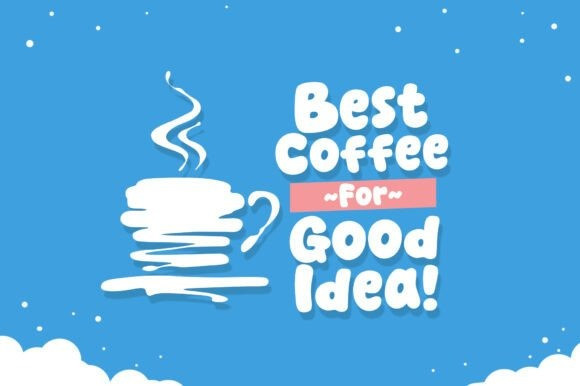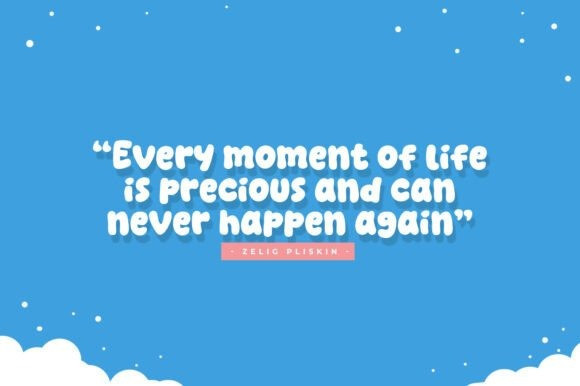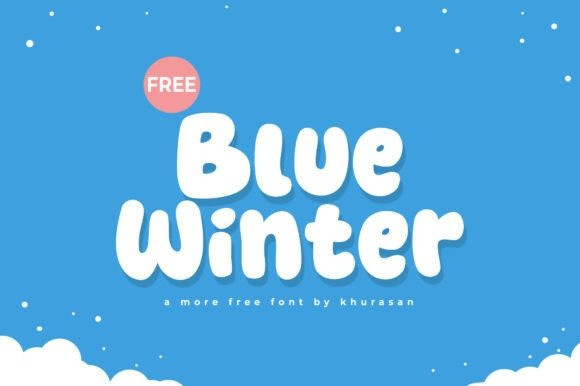
Blue Winter Font
Blue Winter Font a thick, bubbly display typeface that is as bold as a fresh snowfall.This ultra-rounded Blue Winter typeface is designed for high visibility and immediate impact, making it the perfect candidate for children’s winter apparel, toy packaging, and festive posters.
The Blue Winter font features soft, pillowy letterforms that evoke a sense of joy and comfort, ideal for hot cocoa branding or winter festival signage. To maximize its “cool” factor, try enhancing the Blue Winter typeface with icy gradients, drop shadows, or sparkling glitter textures.
It works beautifully as a standalone headline font or paired with a slim, monoline script for a modern, balanced look. From winter-themed game titles to playful YouTube thumbnails, this font ensures your message is both legible and incredibly fun.